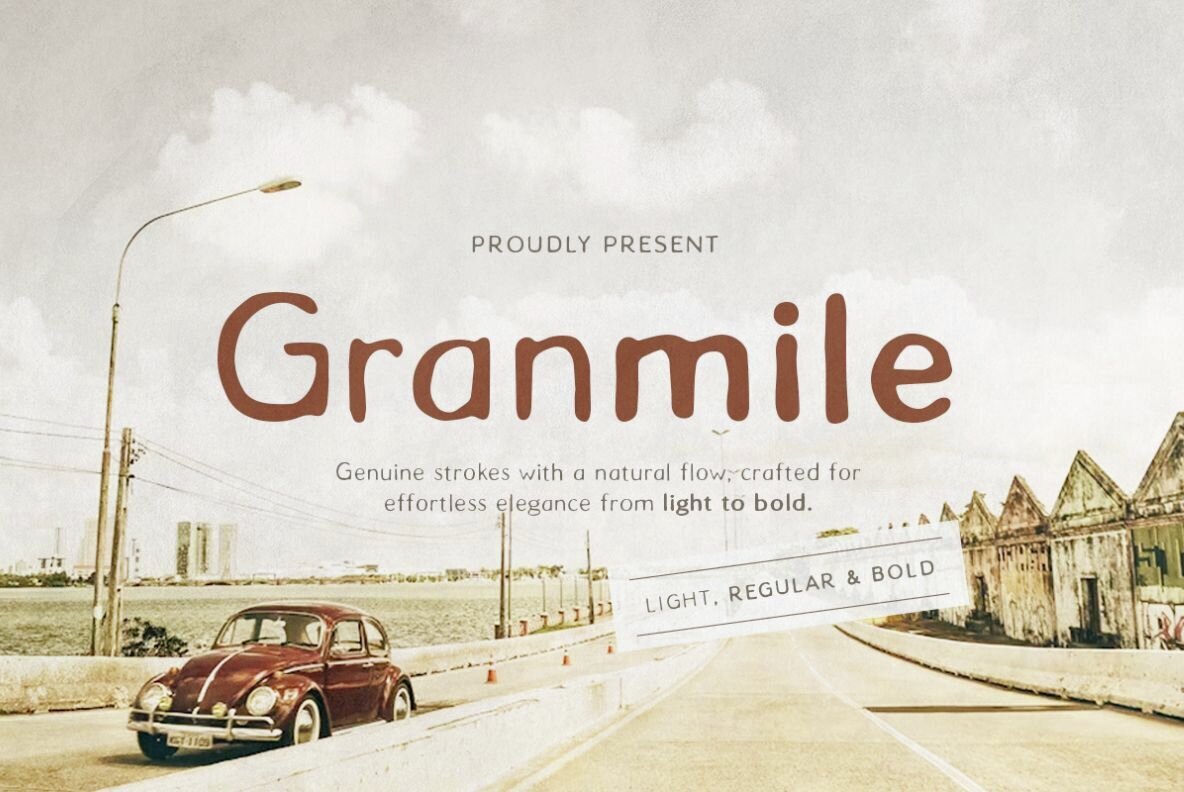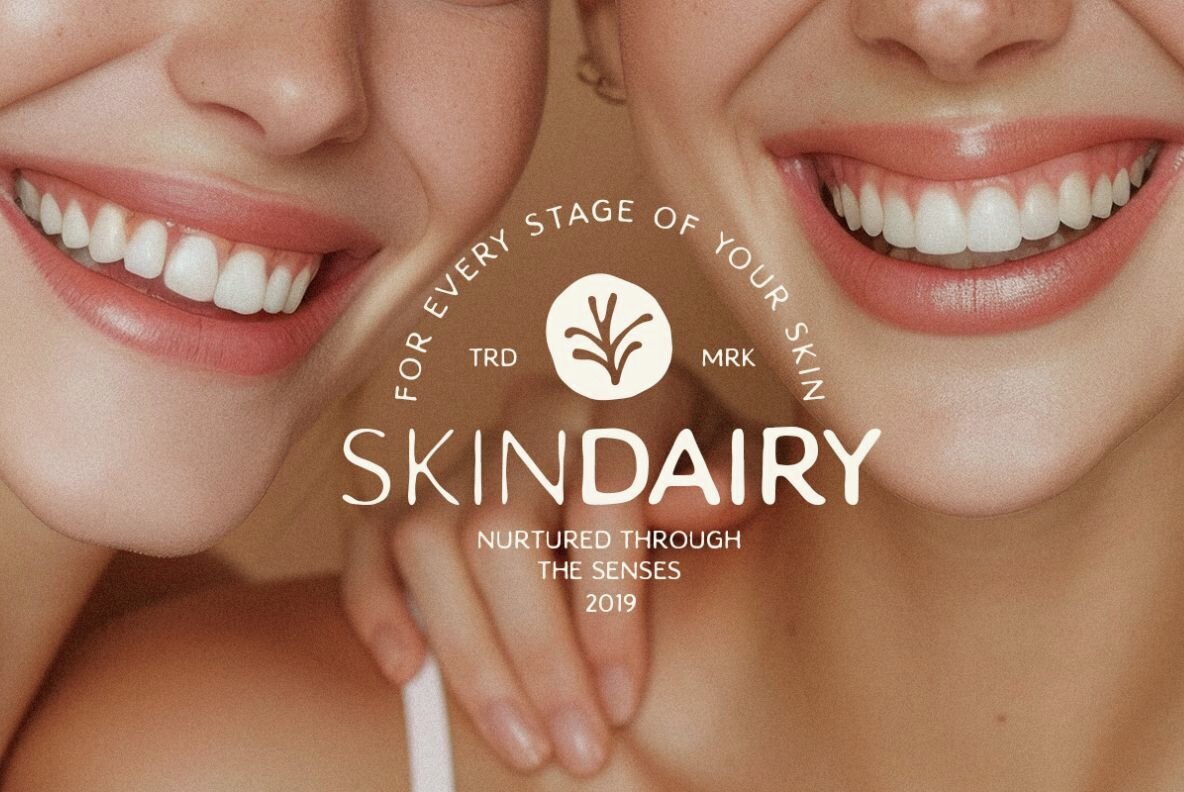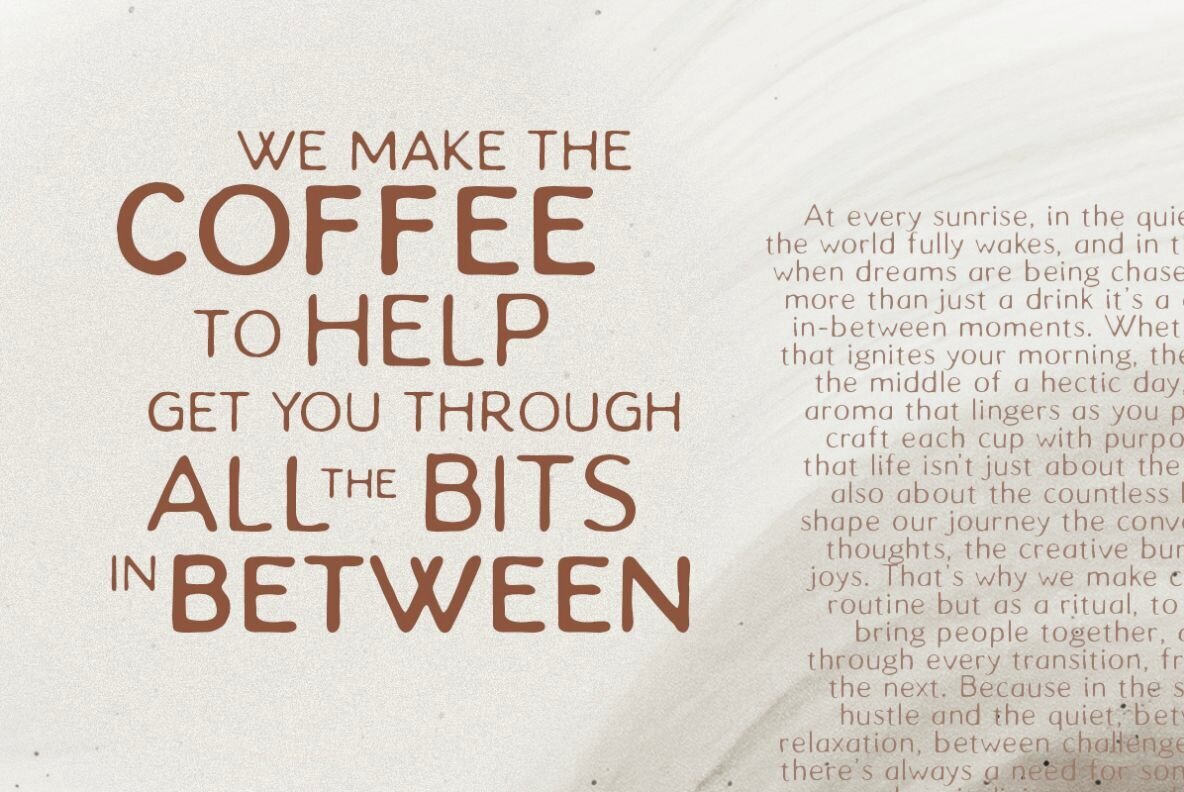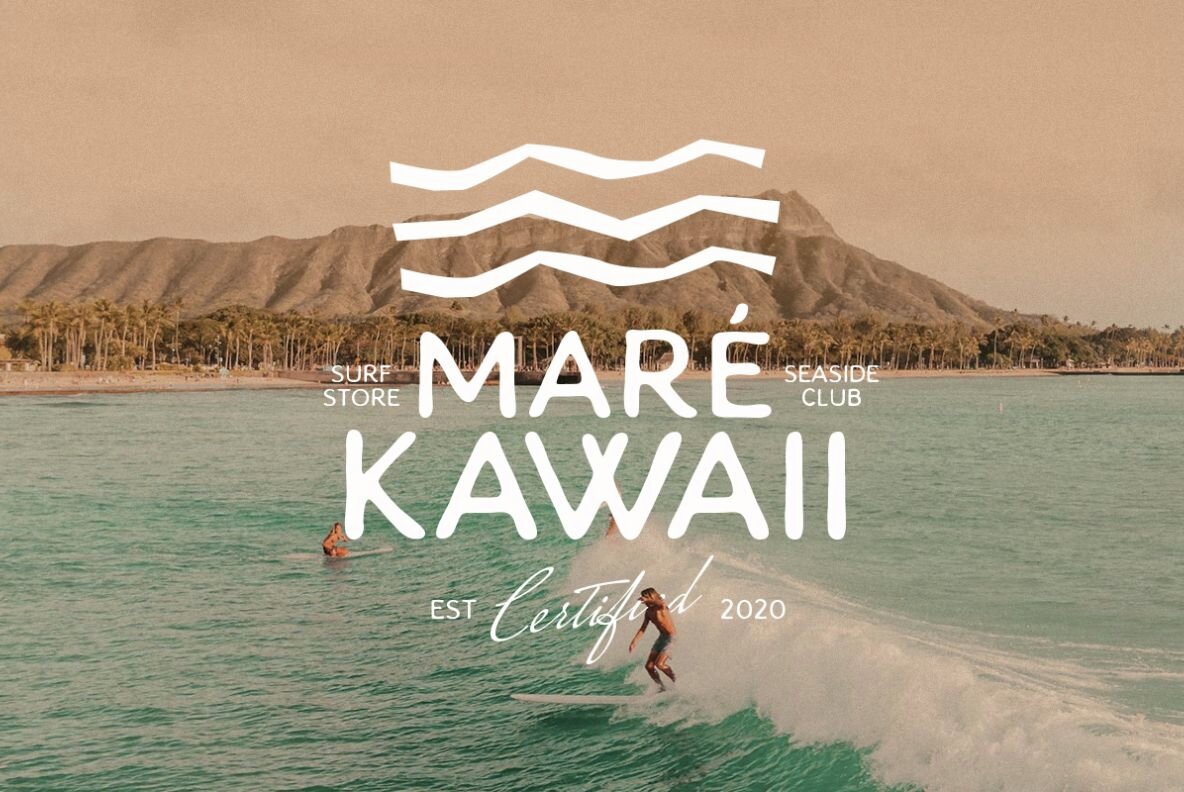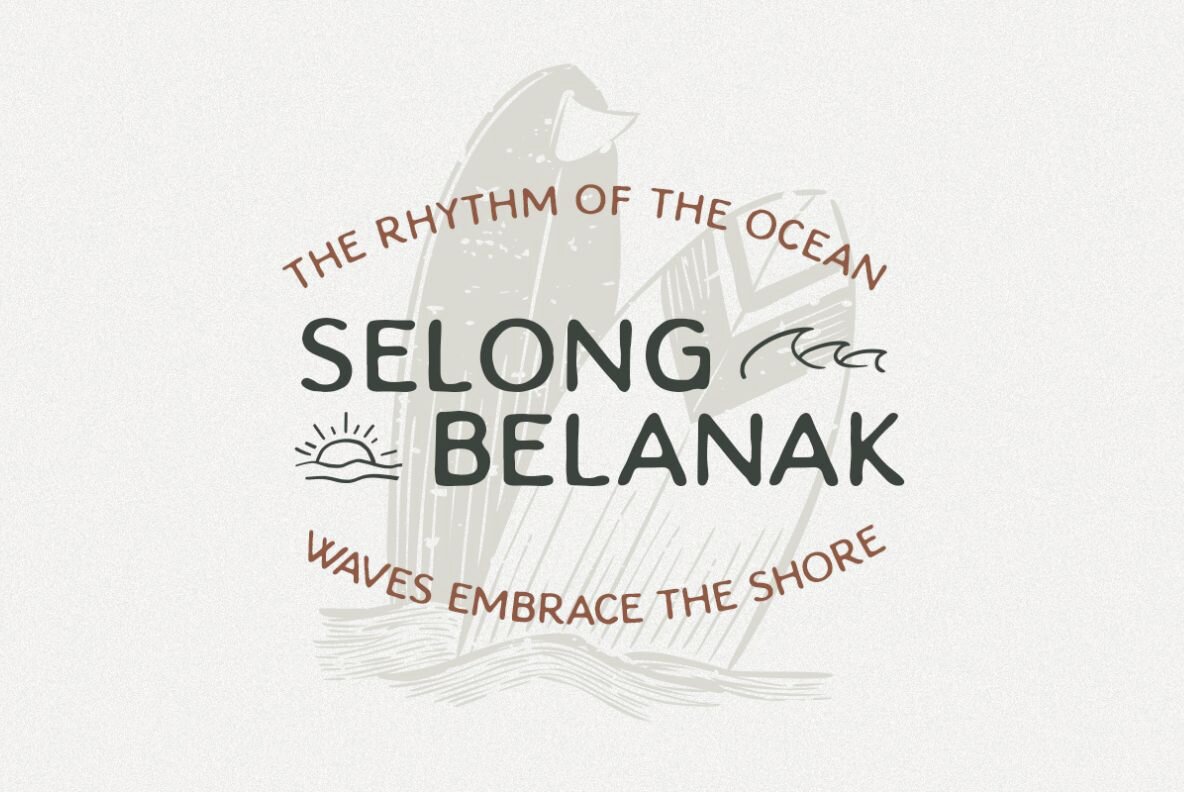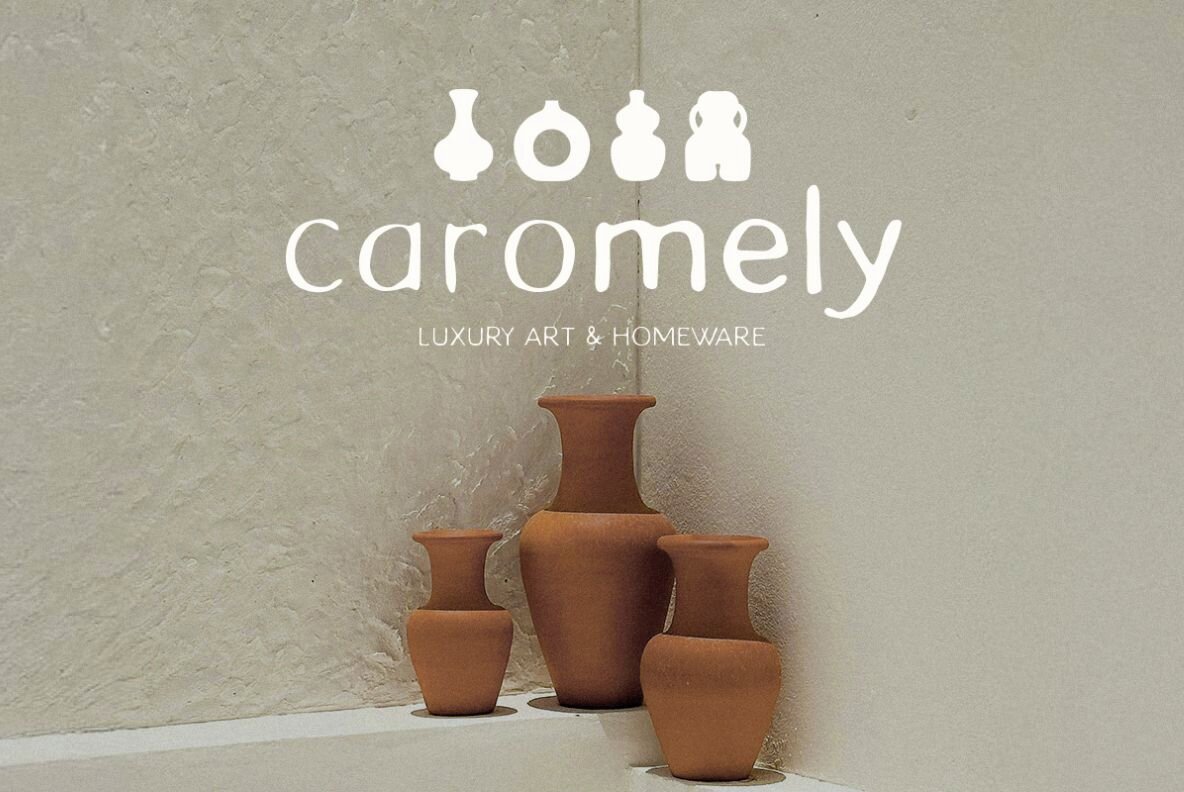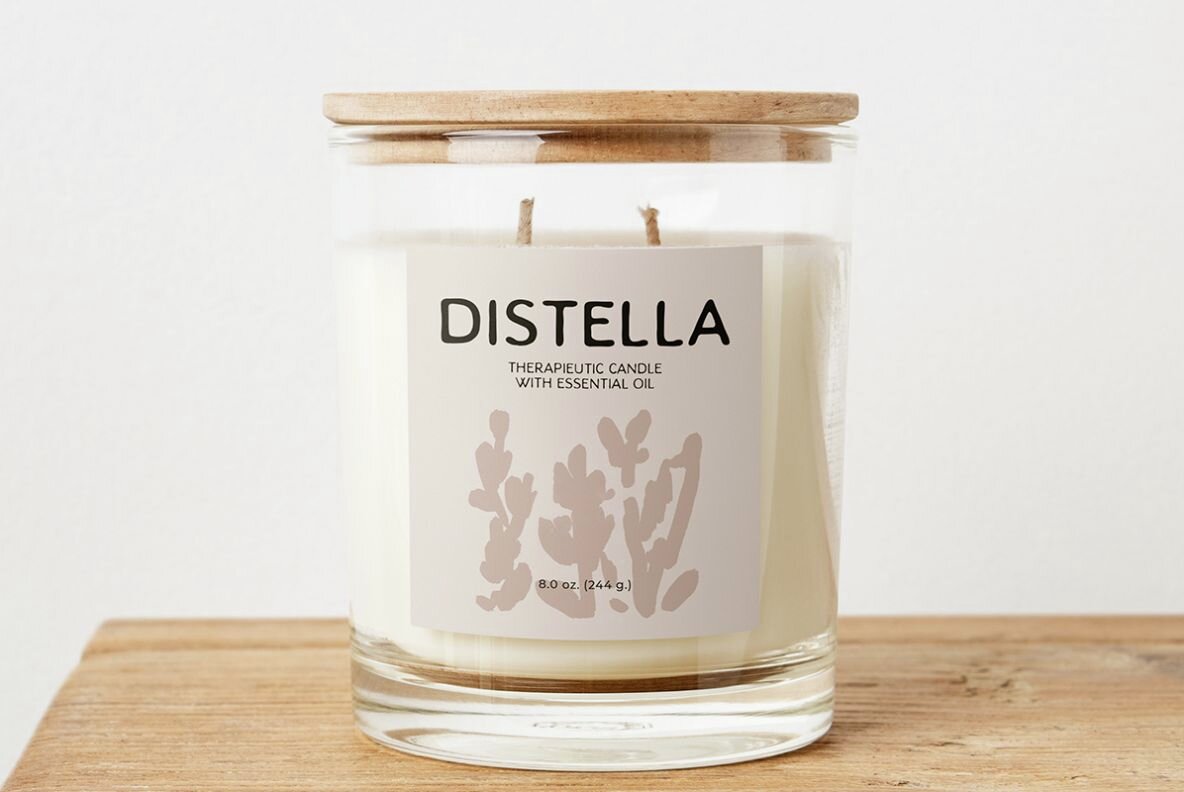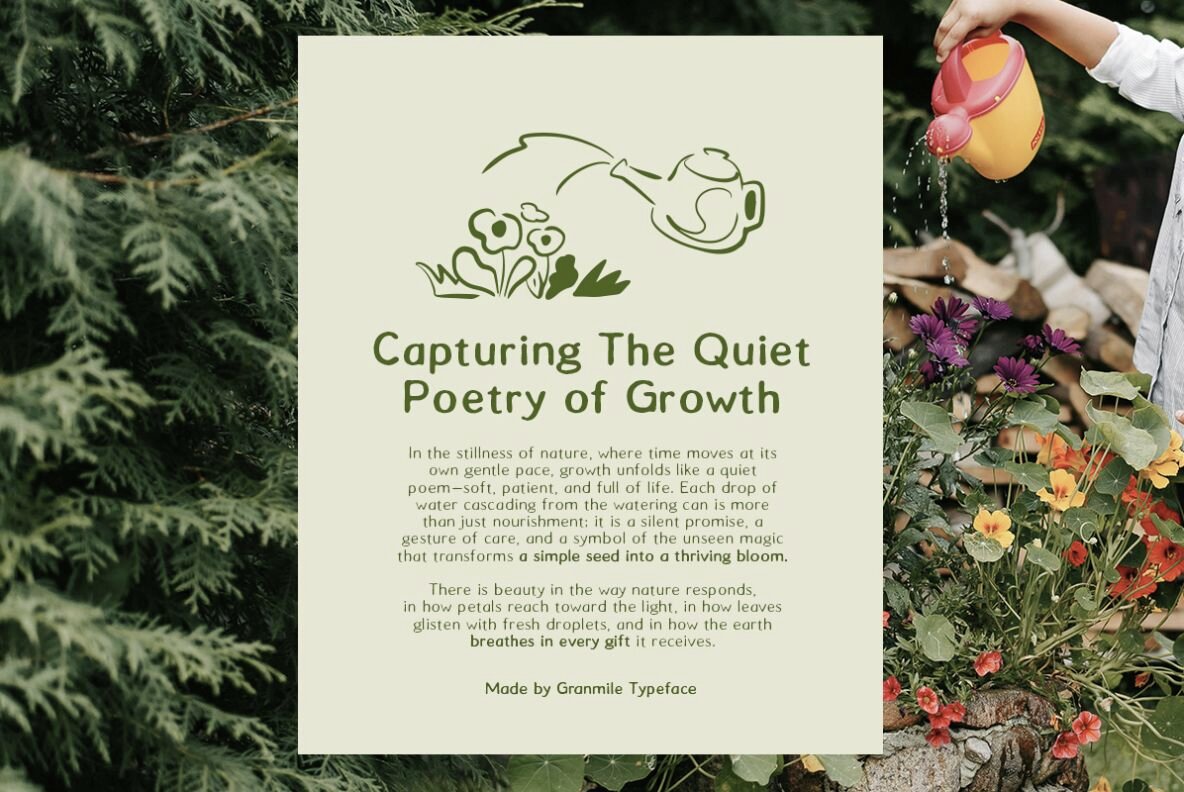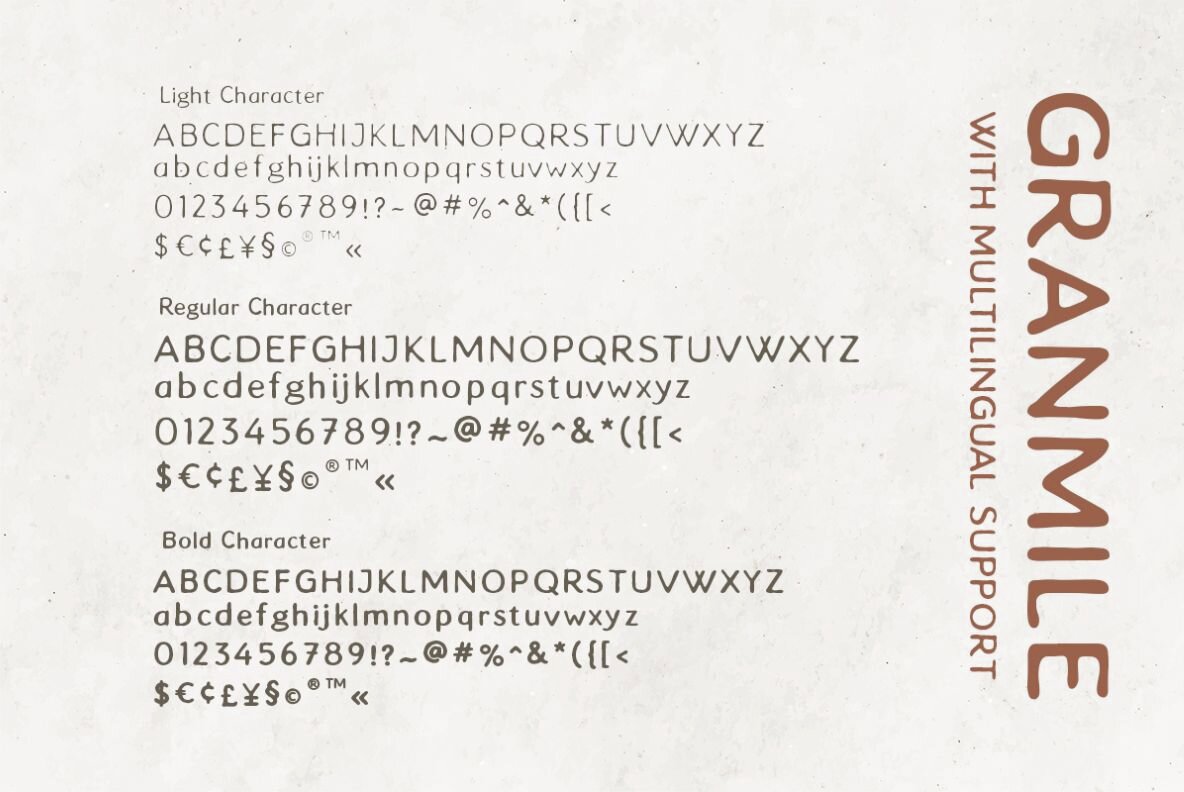
Granmile Font
Granmile is a handwritten sans with light, regular, and bold style. You can use this fonts for any purposes such as branding, logo, quotes, and designs that needs a natural and organic looks. This font also support multi language.